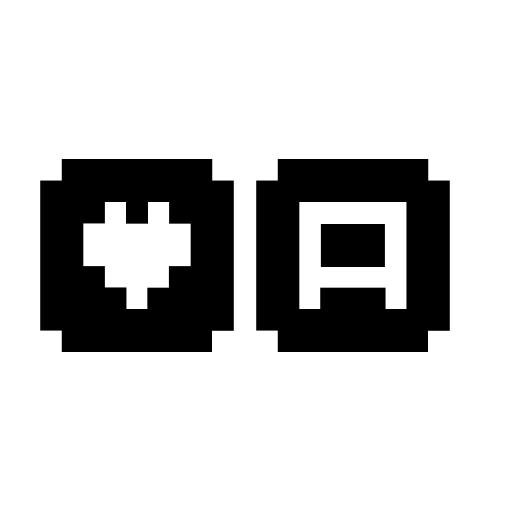
BM Stamp Font is a bold, pixelated sans serif typeface with a strong blocky style reminiscent of digital or retro video game lettering. Its uniform stroke thickness and square edges give it a playful yet industrial feel, making it ideal for designs that need a vintage tech or arcade-inspired vibe. This font works well for logos, posters, and creative projects seeking a quirky, attention-grabbing look with a nostalgic digital twist.
BM stamp Font
About BM stamp Font